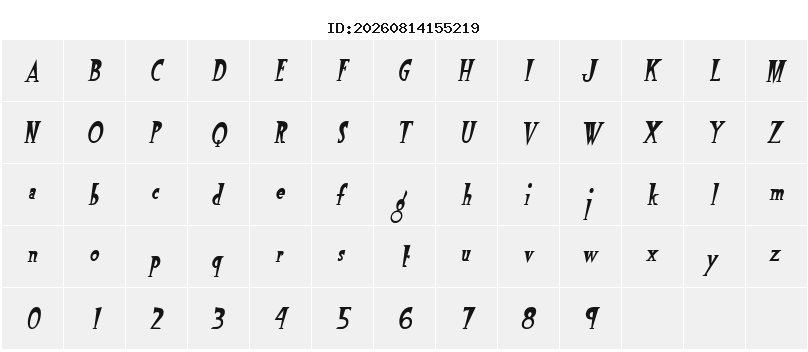
Strange Planet Preview
• Font Name: Strange Planet
• Font Style: Bold Oblique
• Full Font Name: Strange Planet Bold Oblique
About Strange Planet.ttf
Strange Planet.ttf is a modern, elegant sans-serif font designed for ultimate readability and visual harmony. Perfect for branding, headlines, web design, and print materials.